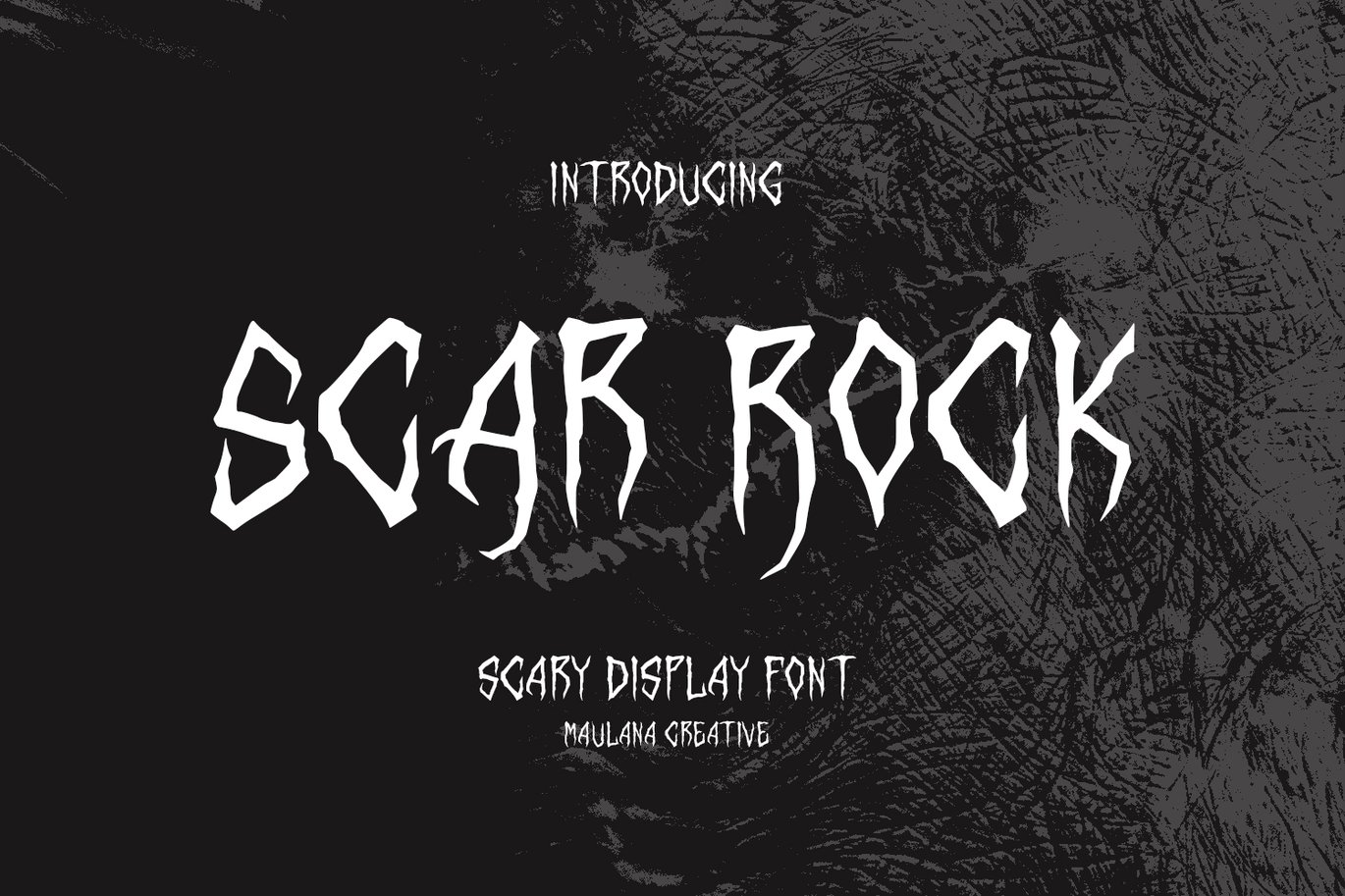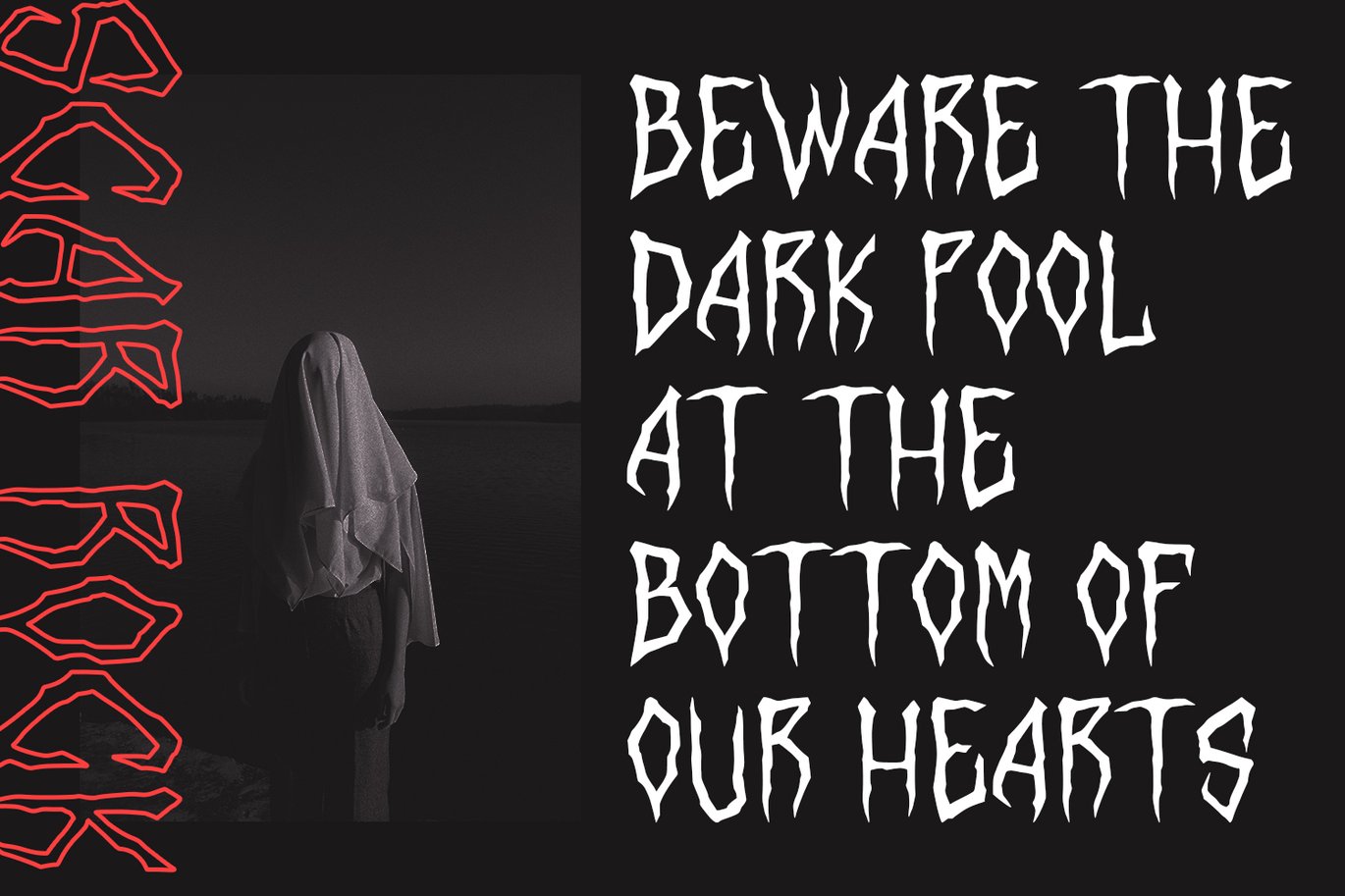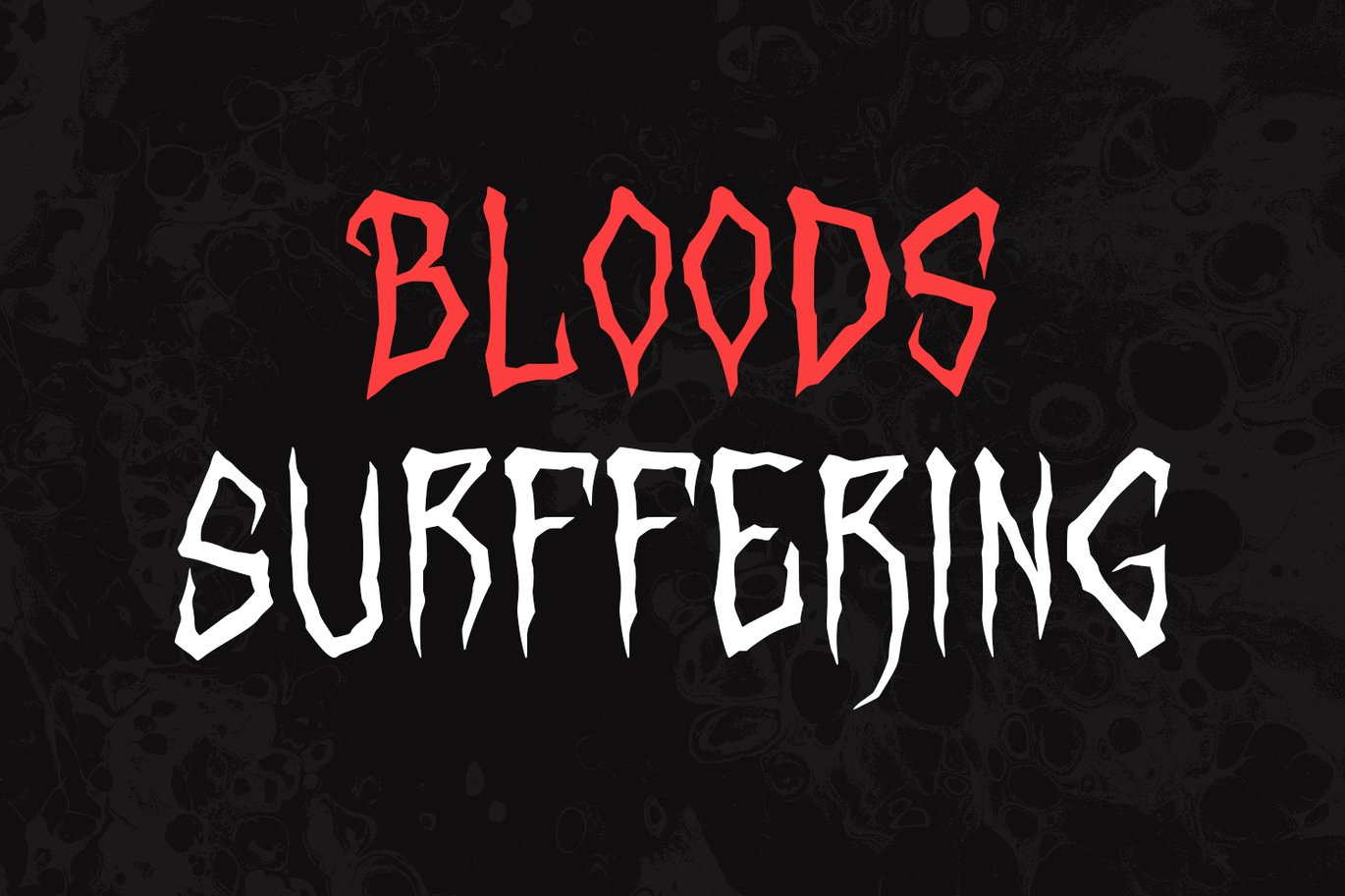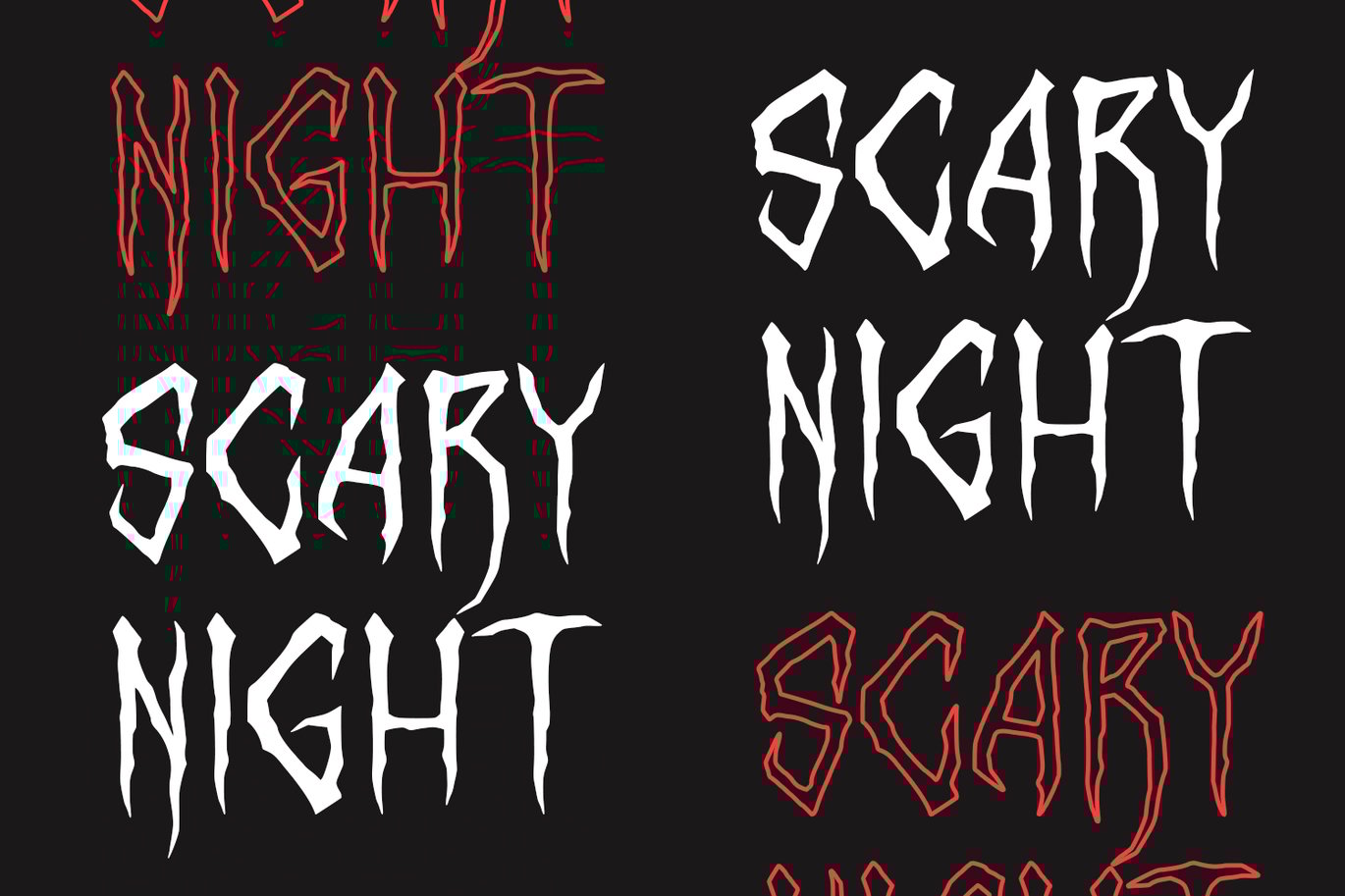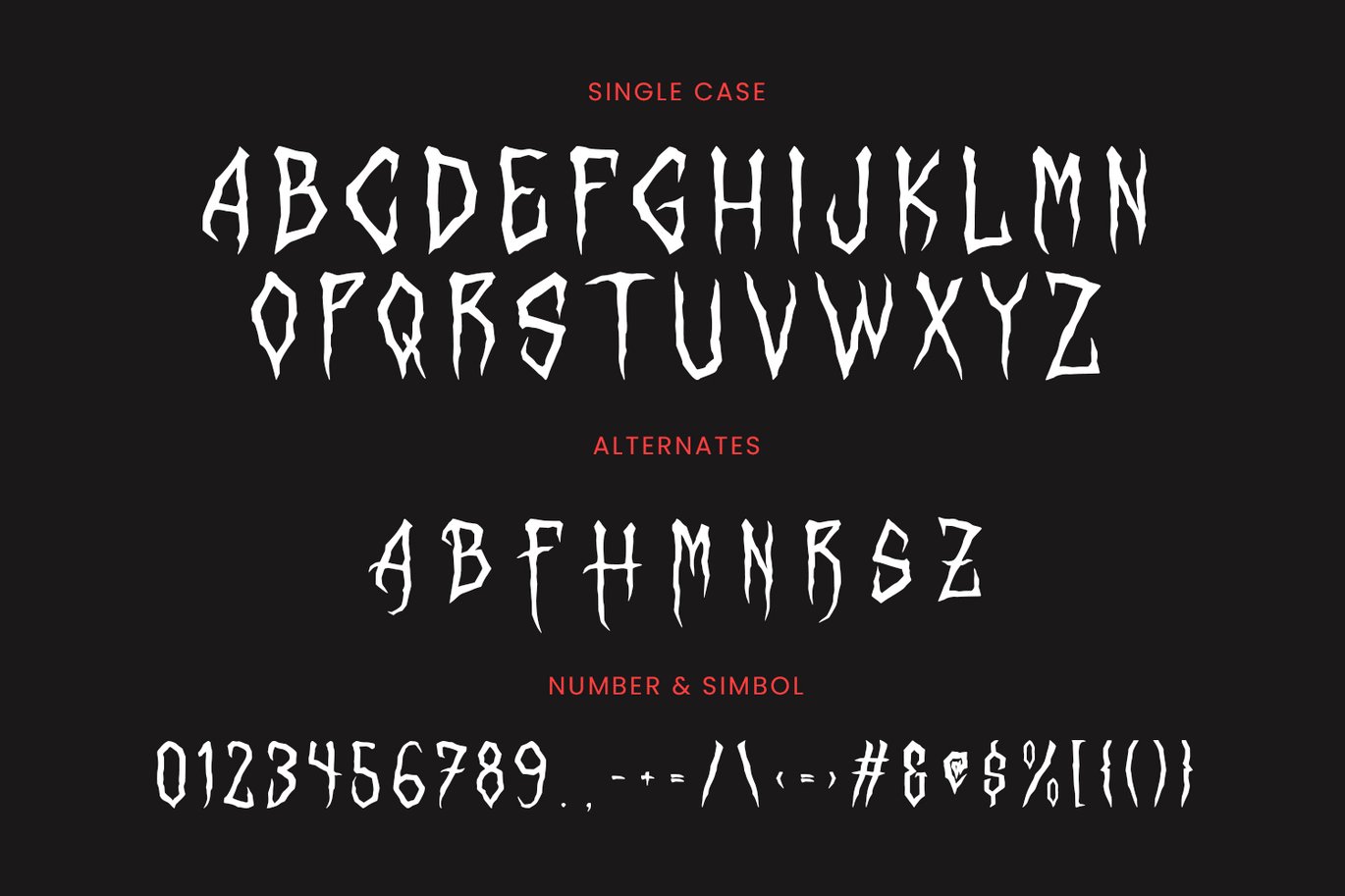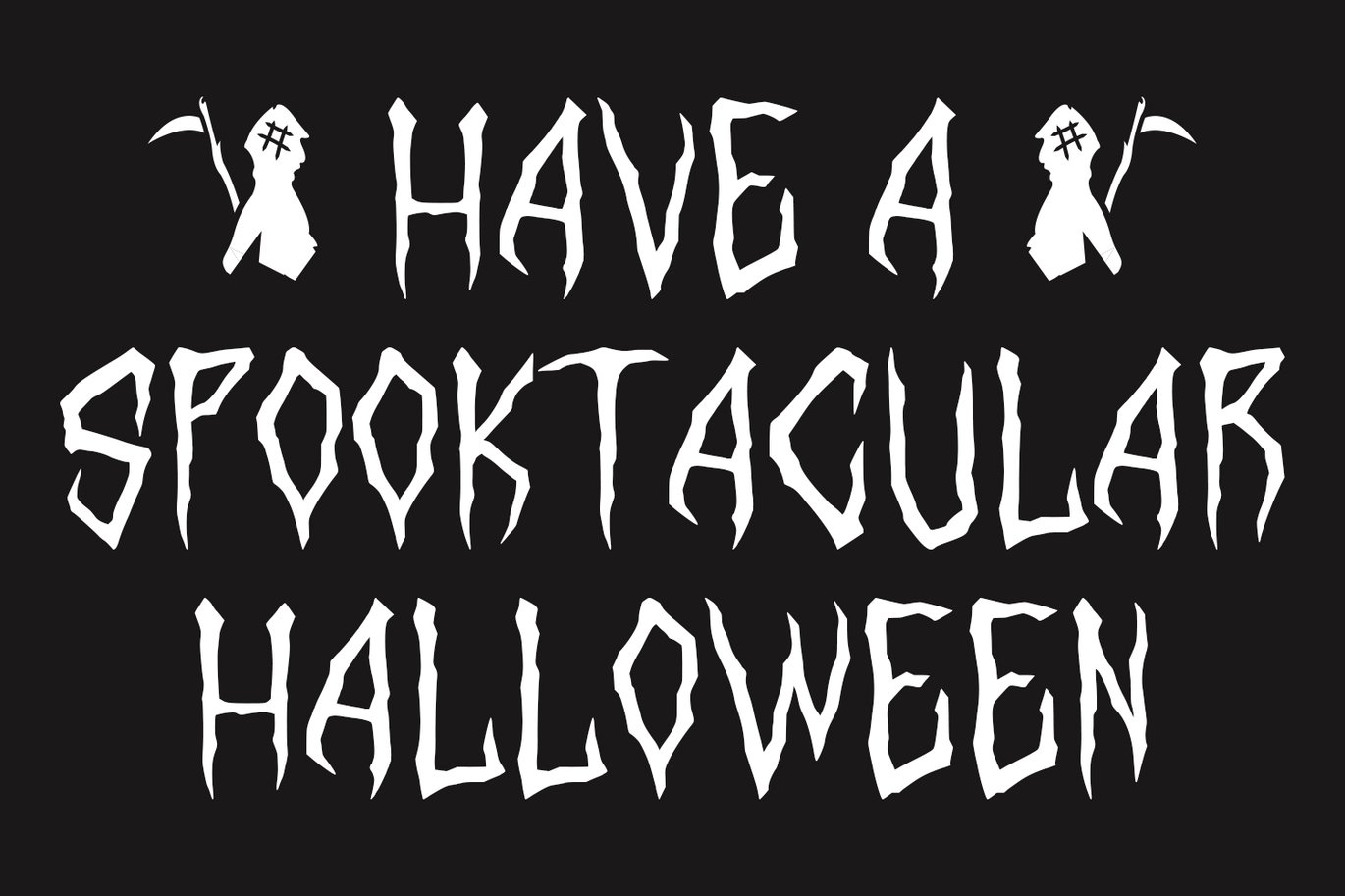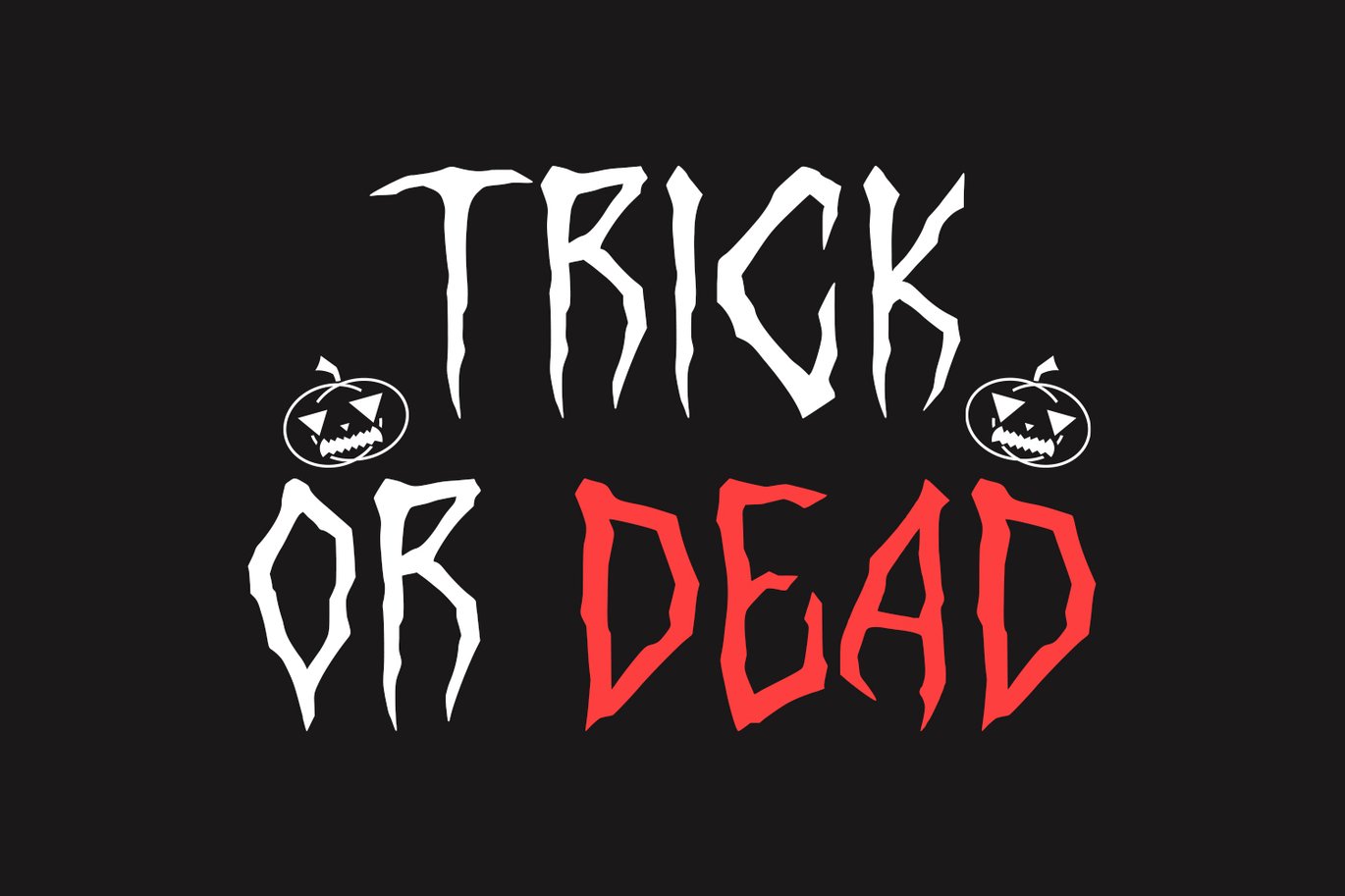
Scar Rock Scary Display Font
Scar Rock scary display font. Heavy stroke, fun character with a bit of ligatures. To give you an extra creative work. Scar Rock scary display font support multilingual more than 100+ language. This font is good for logo design, Social media, Movie Titles, Books Titles, a short text even a long text letter and good for your secondary text font with script or serif. Make a stunning work with Scar Rock scary display font.